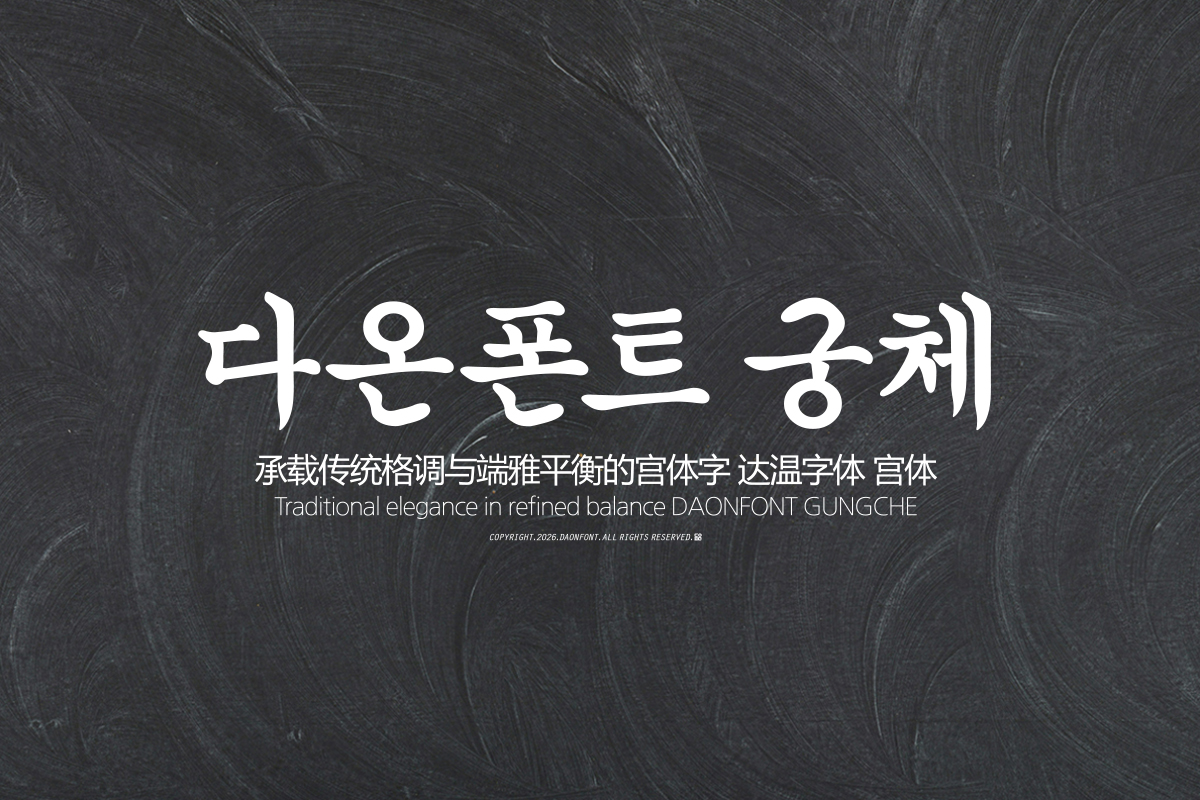
DAON GUNGCHE(B)
DaonFont 'GUNGCHE' is a Hangul typeface that reinterprets the elegant beauty of traditional Korean royal court script to suit the modern digital environment. DaonFont 'GUNGCHE' captures the soft brushstrokes of traditional calligraphy and the inherent beauty of Hangul within modern typography, creating a sophisticated atmosphere and emotional design simultaneously.